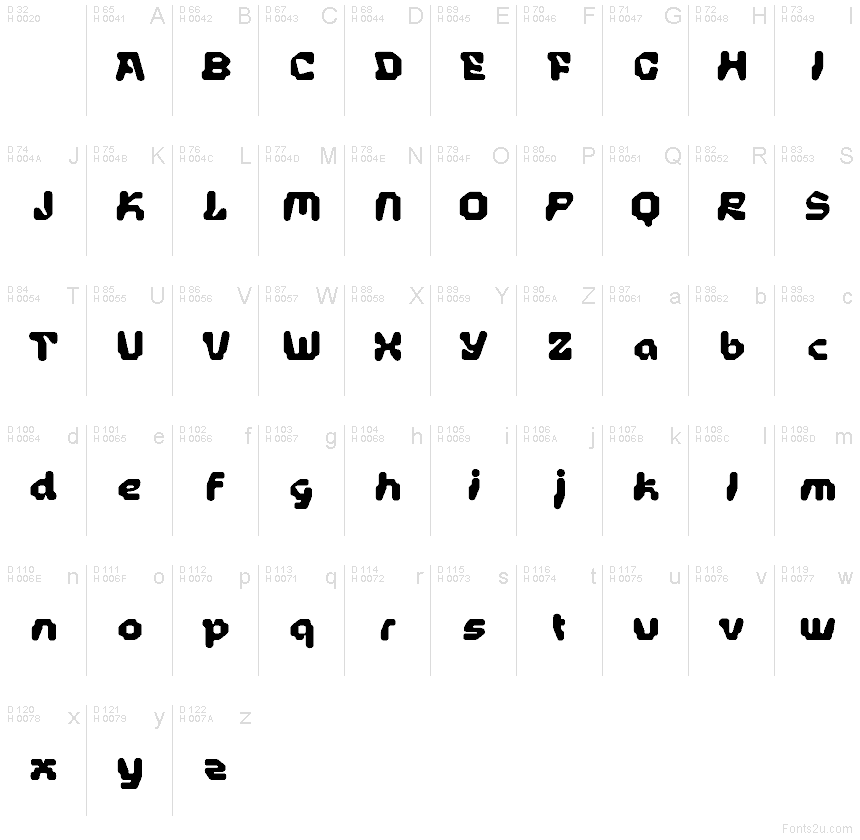
CS Anoxic Regular Demo
CS Anoxic font by Craft Supply Co. is a free bold expanded digital display font. It stands out with bulbous, soft-edged forms punched by sharp, carved-in notches—like futuristic signage molded from liquid plastic. The wide stance and modular rhythm give headlines a thumping presence, while the generous counters keep it readable at impact sizes. It feels both sci‑fi and tactile, more analog synth than cold grid.
Using CS Anoxic, titles snap to attention on gaming covers, sci‑fi posters, tech branding, festival flyers, album art, and UI headers. This free font shines on large scales with slightly tighter tracking. Pair it with a lean geometric sans for body copy to let the chunky, carved shapes do the talking.